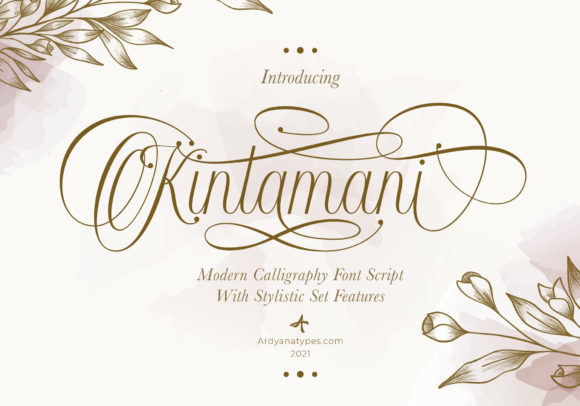
Unleash the elegance of handwritten artistry with Kintamani, a captivating script font that will add a touch of romance and sophistication to your creative endeavors.
Step into a realm of beauty and grace with Kintamani, a font that dances across the page like a delicate whisper. Its graceful curves and flowing lines evoke a sense of timeless elegance, while its playful swashes and charming glyphs add a touch of whimsy and delight.
Picture yourself crafting exquisite wedding invitations that capture the essence of love and commitment, with Kintamani's enchanting characters dancing across the page like a celebration of two hearts entwined. Create heartfelt greeting cards that convey your deepest emotions with a touch of elegance, or design eye-catching headlines that command attention with their timeless charm.
With Kintamani, the possibilities are endless. Allow your imagination to soar as you explore the font's versatility, from heartfelt personal letters to captivating marketing materials. Its wide spectrum of applications makes it the perfect choice for adding a touch of sophistication to any project, whether it's a personal journal entry or a professional presentation.
Make Kintamani your font of choice and embark on a creative journey where beauty and functionality intertwine. Its PUA encoding ensures effortless access to an array of stunning glyphs and swashes, allowing you to effortlessly incorporate intricate details into your designs.
Join the ranks of creative visionaries who have discovered the magic of Kintamani and let your words dance with grace and elegance. Experience the joy of creating something truly special, something that will leave a lasting impression on all who behold it.